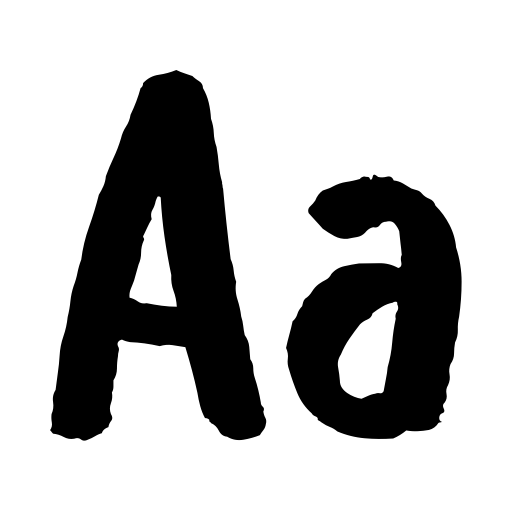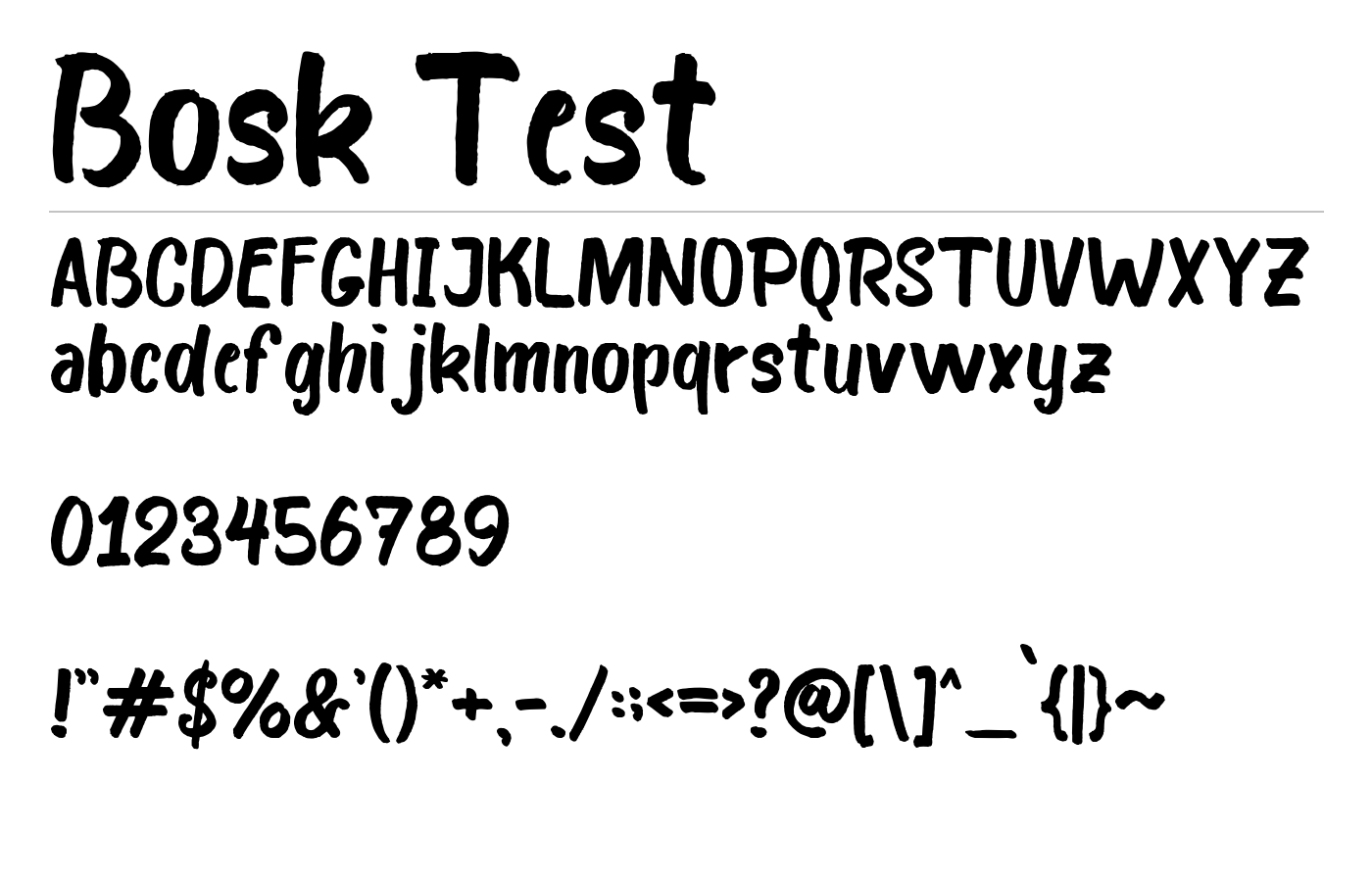
Bosk Test is a fun and casual sans serif font with a hand-drawn, brush-like style that adds personality and warmth. Its slightly irregular strokes and moderate x-height give it an approachable, playful feel perfect for creative projects, children's designs, and informal branding. This font works best for logos, posters, and headlines where a friendly and unique touch is desired.
Bosk Test Font
About Bosk Test Font